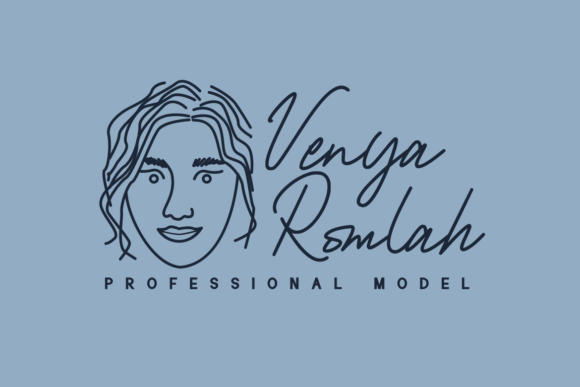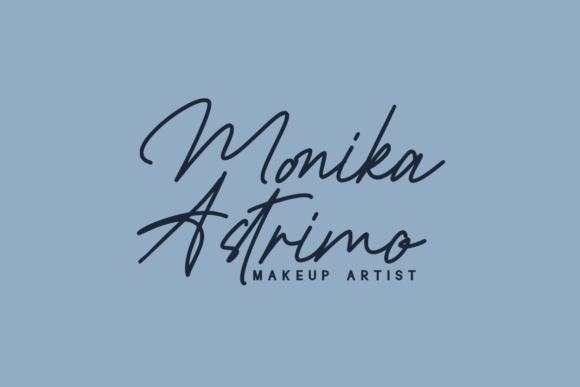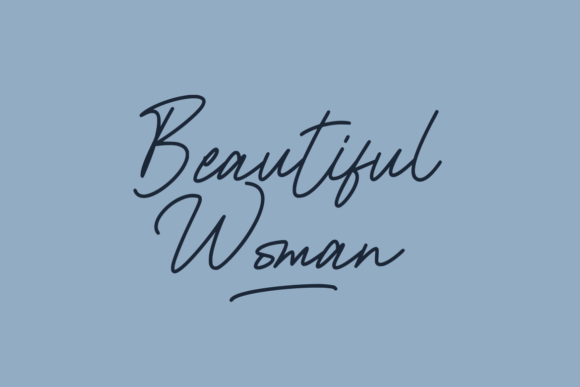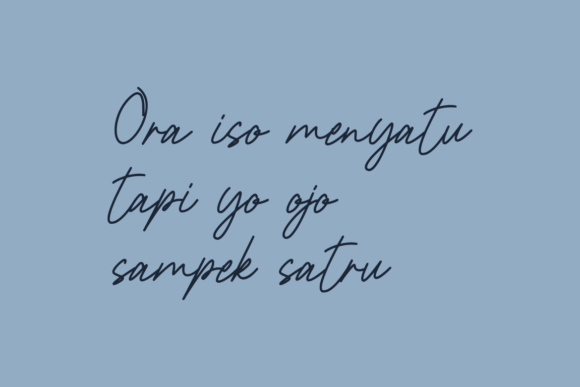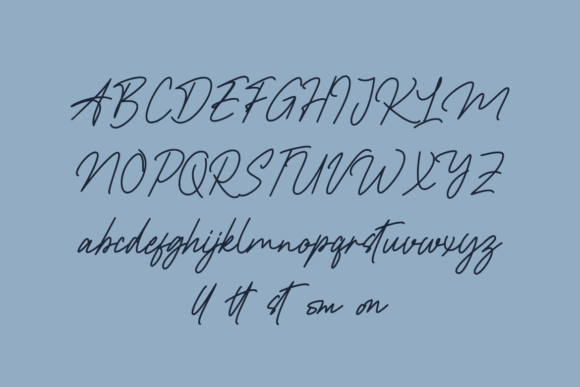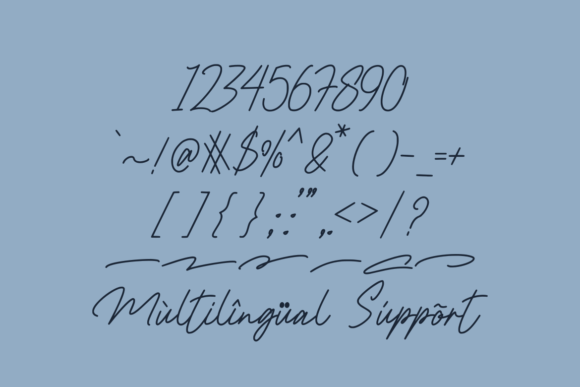
Discover the Elegance of Asyila Endah Font: Elevate Your Designs with a Timeless Touch
In the world of typography, few fonts manage to capture the essence of elegance and timelessness. Asyila Endah Font is one such gem that has been making waves in the design community. This flowing handwritten font is described by an elegant touch, perfect for your favorite projects. With its incredibly distinct and timeless style, Asyila Endah is set to become your new go-to font for creating spectacular designs.
The Unique Charm of Asyila Endah
Asyila Endah is not just another font; it’s an experience. Its flowing script and elegant strokes bring a level of sophistication to any project. Whether you’re working on a branding project, a wedding invitation, or a fashion blog, Asyila Endah adds that special touch that sets your work apart. The font’s unique charm lies in its ability to convey emotion and personality, making it perfect for designers who want to add a human touch to their creations.
Why Designers and Crafters Love Asyila Endah
So, what makes Asyila Endah a favorite among designers and crafters? Here are a few reasons:
• Elegance and Sophistication: Asyila Endah exudes elegance and sophistication, making it perfect for high-end branding, luxury packaging, and refined editorial content.
• Versatility: This font is incredibly versatile and can be used for a wide range of projects, from digital content to print materials.
• Timeless Appeal: Unlike trendy fonts that may quickly go out of style, Asyila Endah has a timeless appeal that ensures your designs remain relevant for years to come.
• Emotional Connection: The flowing script and elegant strokes of Asyila Endah create an emotional connection with the reader, making your content more engaging and memorable.
Tips for Using Asyila Endah in Your Designs
To make the most of Asyila Endah, here are some tips to keep in mind:
• Pair it with Neutrals: Asyila Endah is a statement font, so pair it with neutral fonts to create a balanced look.
• Use it for Headings: The font’s elegance and sophistication make it perfect for headings and titles.
• Experiment with Colors: Asyila Endah looks stunning in a variety of colors, so don’t be afraid to experiment and find the perfect hue for your design.
• Pay Attention to Spacing: To maintain the font’s elegance, ensure you use adequate spacing between lines and words.
Asyila Endah Font is a game-changer for designers and crafters looking to elevate their designs with a touch of elegance and timelessness. Its unique charm, versatility, and emotional appeal make it perfect for a wide range of projects. By incorporating Asyila Endah into your design toolkit, you’ll be able to create spectacular designs that leave a lasting impression. So, fall in love with Asyila Endah and discover a world of creative possibilities!
• Elegant and sophisticated handwritten font
• Flowing script with timeless appeal
• Perfect for branding, editorial content, and creative projects
• Versatile and easy to use